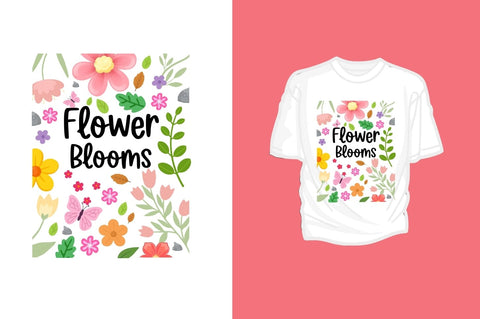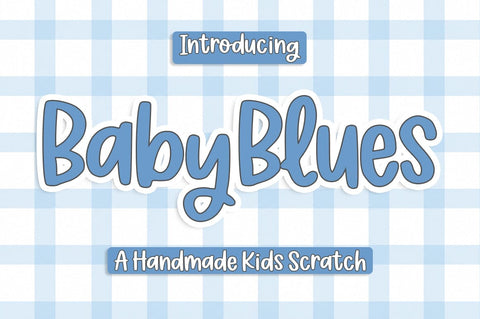
Baby Blues
Baby Blues – Handmade Font
Introducing Baby Blues, a beautifully handcrafted typeface that captures the warmth of genuine handwriting with a playful yet sophisticated personality. Designed with naturally flowing strokes and carefully crafted imperfections, this font brings authenticity, charm, and creativity to every project. Its organic letterforms create a welcoming, making it an excellent choice for designers seeking a typeface that feels both expressive and timeless.
Whether you're designing branding materials, product packaging, social media graphics, greeting cards, wedding stationery, children's products, or inspirational quotes, Baby Blues effortlessly adds a handcrafted touch that feels fresh, modern, and full of character. Every letter has been thoughtfully drawn to preserve the beauty of real penmanship while maintaining excellent readability across both digital and print media.
The relaxed rhythm and smooth curves make Baby Blues incredibly versatile. It blends perfectly with minimalist layouts, rustic themes, vintage-inspired branding, and contemporary creative projects. From boutique logos and café menus to handmade product labels and pro merchandise, this font delivers an inviting aesthetic that leaves a lasting impression.